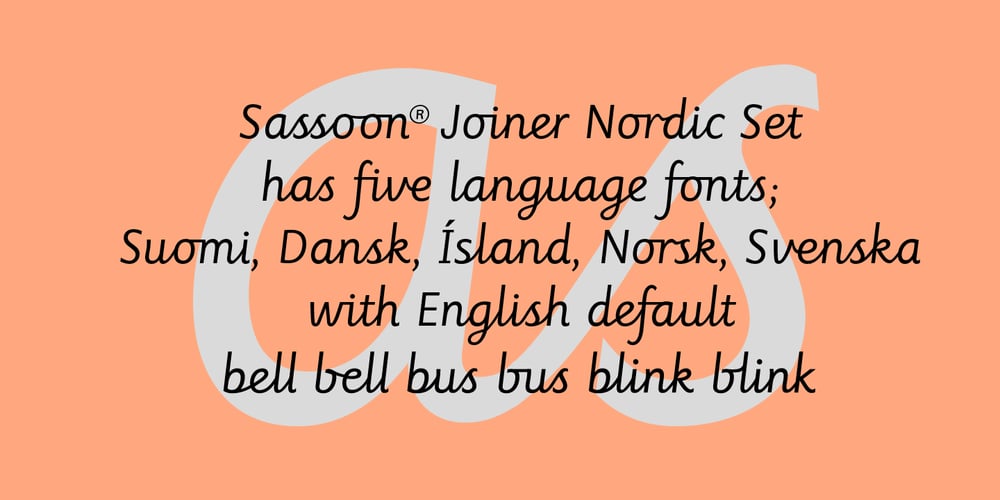
Sassoon Joined NORDIC
Sassoon Joined NORDIC font
Sassoon Joined NORDIC Font Family was designed by Adrian Williams, Rosemary Sassoon and published by Sassoon-Williams. Sassoon Joined NORDIC contains 5 styles and family package options. These fonts will join-as-you-type in your OpenType application as shown in the posters above. Choose Use Contextual Alternates option in your app to get basic recommended baseline joins for teaching. Additionally, use can choose from 7 Stylistic Sets of alternative letterforms that are so important for Teachers. Create ‘pen lifts’ anytime too! Fonts display unjoined by default on this website and are delivered that way – joining is controlled by your application. Designed for teaching children, these fonts enable progressive pupil exercises for a smooth transition between separate letters and the teaching of joined handwriting. Purchase a single font or the complete package contains the typeface ‘Sassoon Joined’ in a Regular weight only, for the 5 Nordic languages; Finnish (Suomi), Danish (Dansk), Icelandic (íslenska), Norwegian (Norsk), Swedish (Svenska), with English as the default language in all fonts. These fonts are for use with a compatible OpenType applications such as Word to get joined text. Or, enter ” | ” between letters for unjoined text. Free to download resources Stylistic Sets and how to access the alternative letters feature in these OpenType fontsPurchasers of this font package may use their Order Number to receive a free Copybook PDF by Rosemary Sassoon recommended for effective teaching